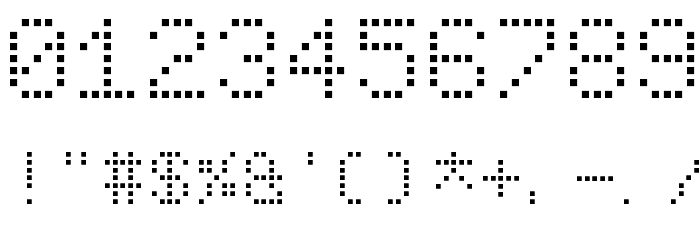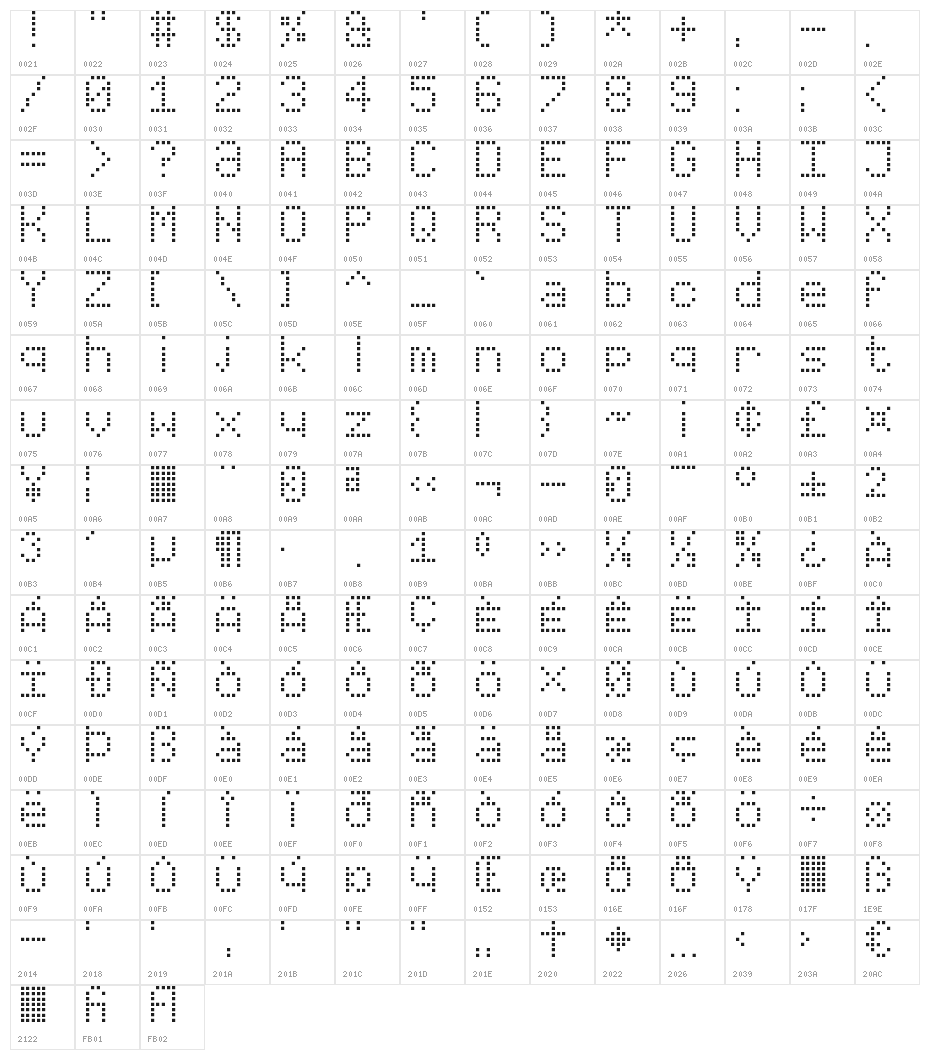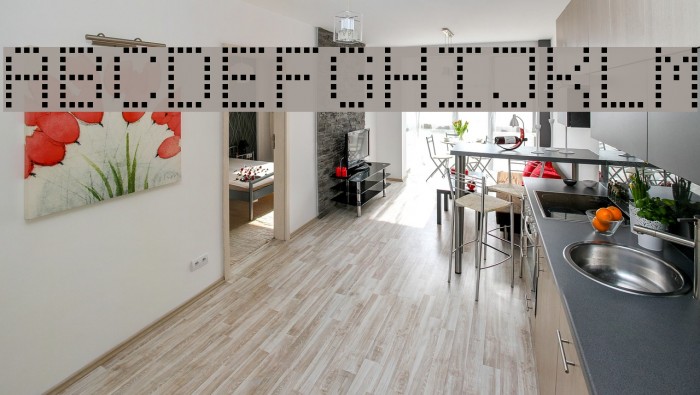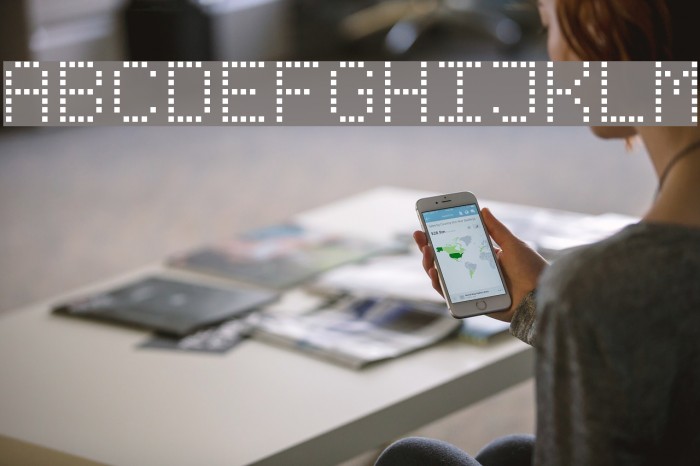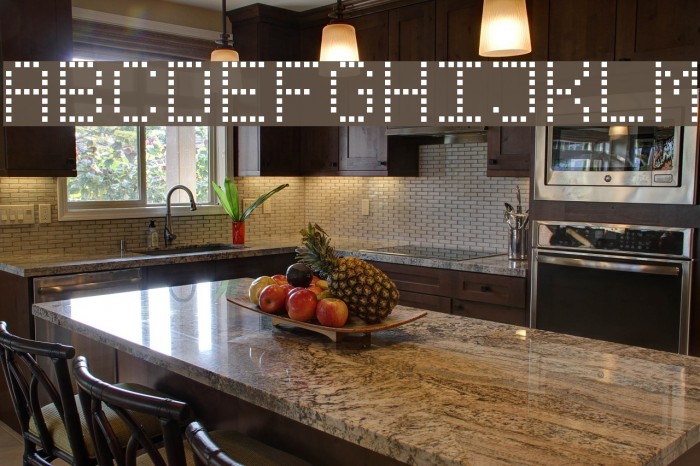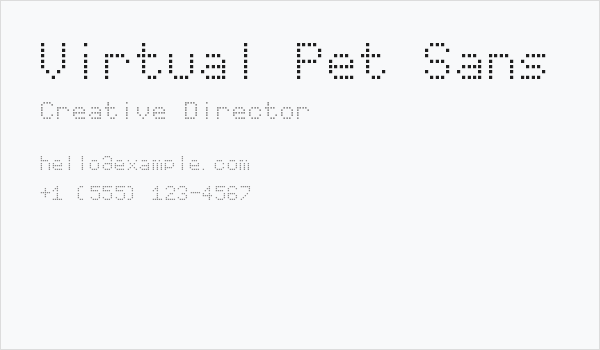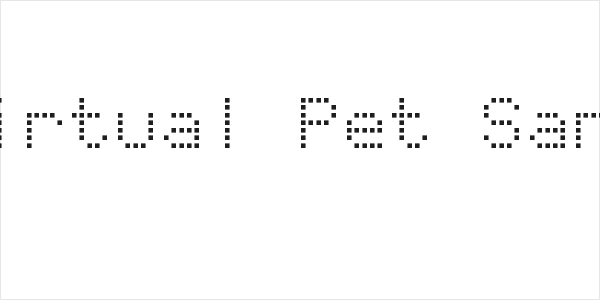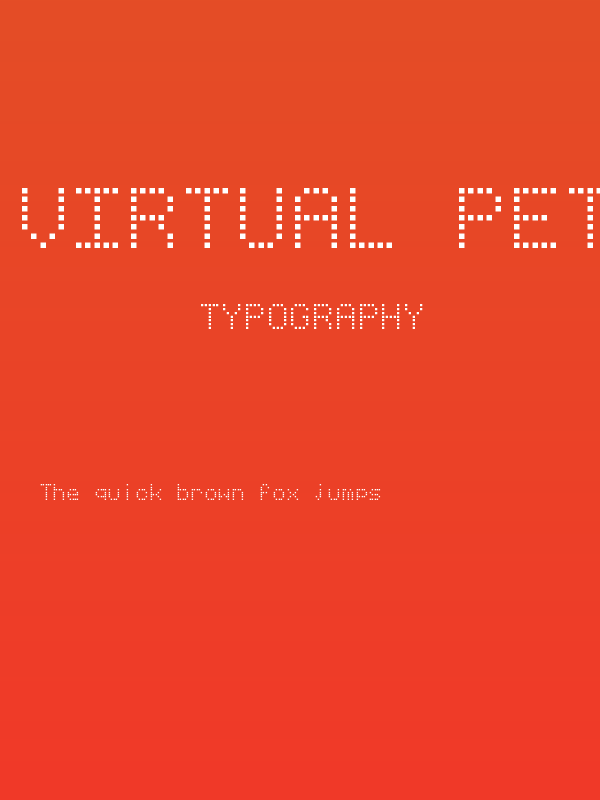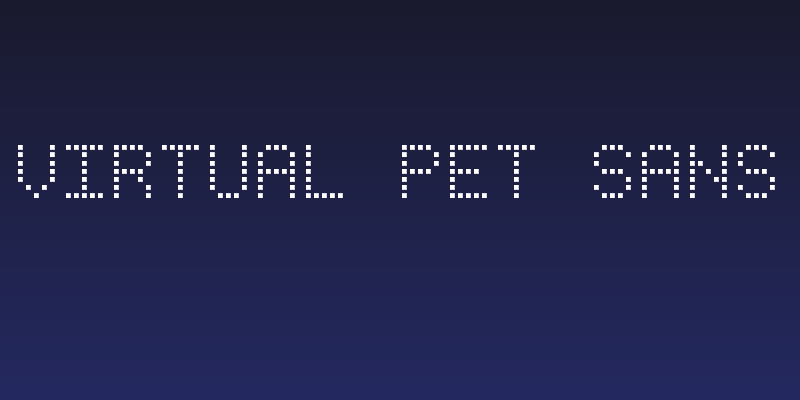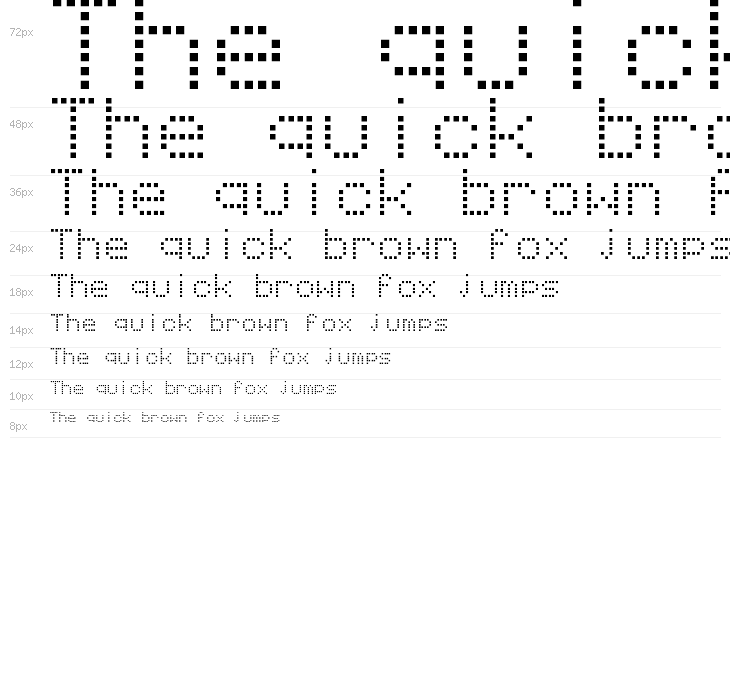
Virtual Pet Sans Font
Virtual Pet Sans Description
This font is a playful and modern take on digital aesthetics, characterized by its unique dot matrix style. Each character is composed of small, evenly spaced dots, reminiscent of early digital displays and pixel art. The font maintains a consistent structure across both uppercase and lowercase letters, as well as numbers and special characters. Its geometric precision and uniformity give it a clean and futuristic feel, while the dotted design adds a touch of nostalgia and charm. The font is highly legible, making it suitable for various digital applications where a retro or tech-inspired look is desired.
| Use Case | Logos, Headlines, Digital displays |
| Proposed Projects | Ideal for digital art projects, retro-themed designs, tech-related branding, and user interfaces that require a futuristic or nostalgic touch. |